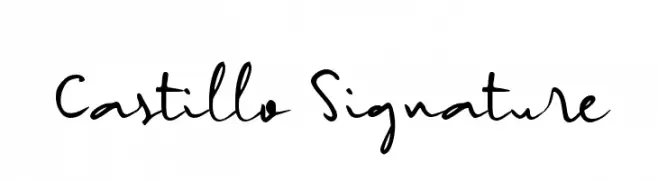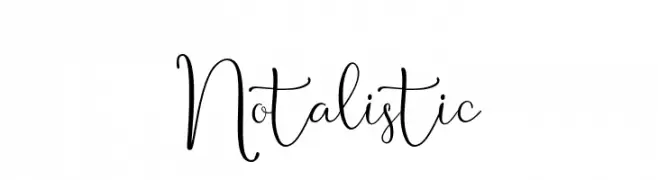
A bold, angular, and futuristic geometric font.
A bold, geometric font with hollow interiors and sharp, angular lines.
A handwritten, signature-style font with a dynamic and artistic flair.
A bold, decorative font with intricate patterns and a modern, artistic style.
A lively and flowing script font with elegant, elongated letterforms.
A bold, decorative font with elegant swirls and dramatic strokes.
A bold, brush-style font with dynamic, handwritten strokes.
A dynamic, expressive handwritten font with fluid strokes and elegant loops.
An elegant, flowing script font with whimsical loops and dynamic forms.
A bold, playful font with whimsical and artistic character shapes.